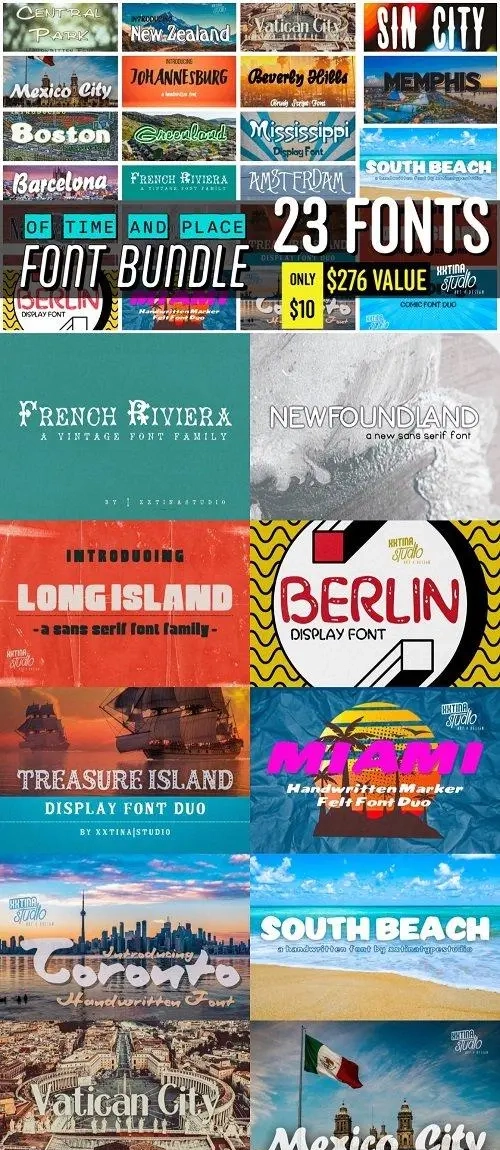
Of Time And Place Font Bundle – 23 Fonts
The Of Time And Place Font Bundle features a collection of 23 unique fonts, each crafted to bring character and style to your projects. This versatile bundle includes a mix of serif, sans-serif, and display fonts, perfect for a variety of applications.
• 23 distinct font styles
• Includes serif, sans-serif, and display options
• Multiple weights and styles for flexibility